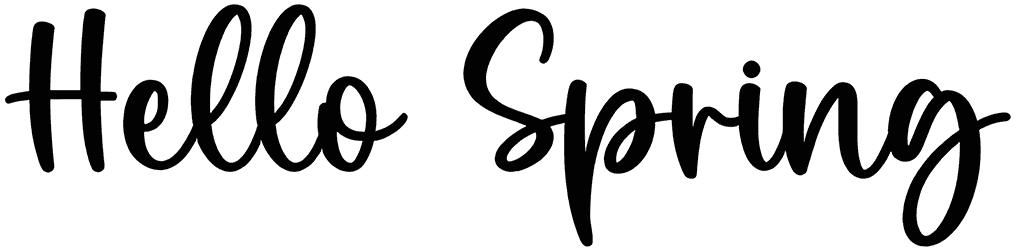
Hello Spring Font
Say hello to this soft, fresh handwritten font that will throw some delightful vibe into your words. Hello Spring font supports A-Z characters, so you can use it for any project. Numerous projects, such as a Christmas event flyer, can be amazing with this thank you font and mesmerize your viewers.